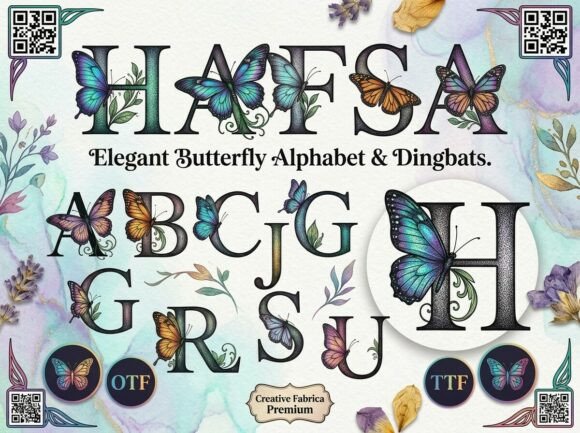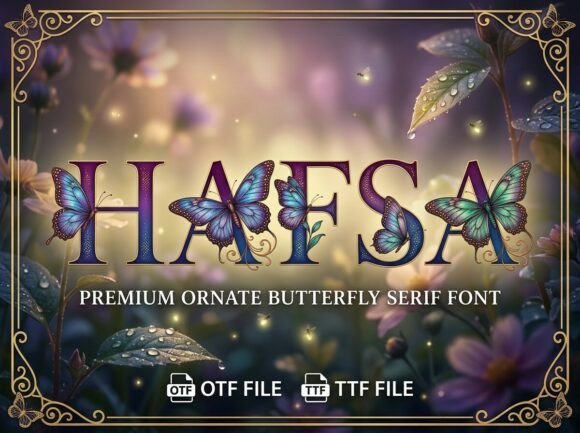
Transform your text into a shimmering forest dream with Hafsa, a beautiful butterfly serif font.
Each character is paired with breathtakingly detailed monarchs and swallowtails, creating a stippled, textured effect that dances off the page Hafsa balances a clean, readable serif structure with the ethereal grace of lepidopterology, making it a standout choice for book covers, artistic posters, and magical branding.